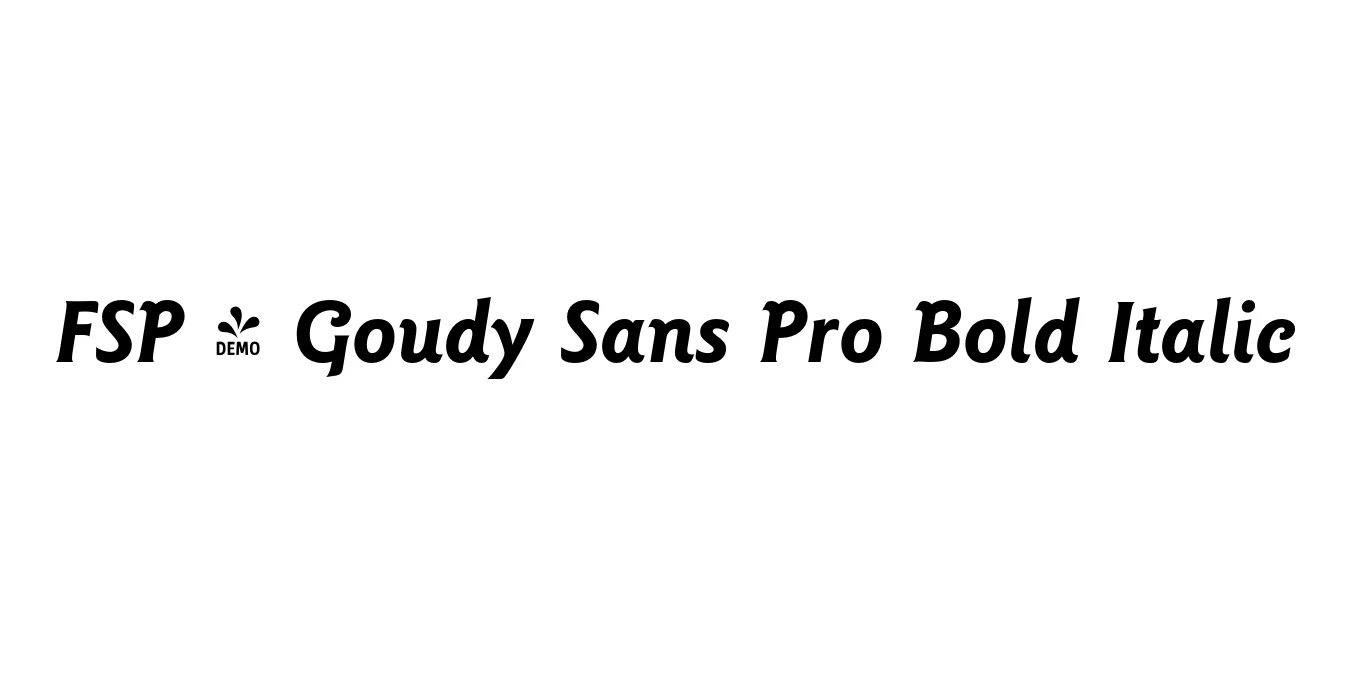
FSP - Goudy Sans Pro Bold Italic
Designed by Frederic W. Goudy
Goudy Sans Pro Bold Italic is a masterful humanist sans-serif typeface that reflects the calligraphic expertise of its creator, Frederic W. Goudy. Designed in 1929, it breaks away from the cold, geometric trends of early 20th-century sans-serifs, instead offering flared terminals and a rhythmic flow that mimics the motion of the hand. The 'Pro' version revitalizes this classic by adding a full suite of OpenType features, making it a versatile tool for modern digital and print workflows.
The Bold Italic weight specifically offers a unique blend of authority and elegance. Its slanted, dynamic forms are particularly effective for creating visual interest in display settings without losing readability. As a cornerstone of American typography, Goudy Sans Pro Bold Italic remains a favorite for designers who seek a typeface that feels both historical and contemporary, bridging the gap between traditional serif craftsmanship and modern sans-serif utility.
FSP - Goudy Sans Pro Bold Italic Best Uses
Excellent for bold headlines and sophisticated pull quotes in magazine layouts.
Provides a distinctive and premium feel for logo designs and corporate identities.
Captures attention in high-end print ads and promotional posters with its unique flares.
Ideal for luxury product labels that require a blend of modern and traditional aesthetics.